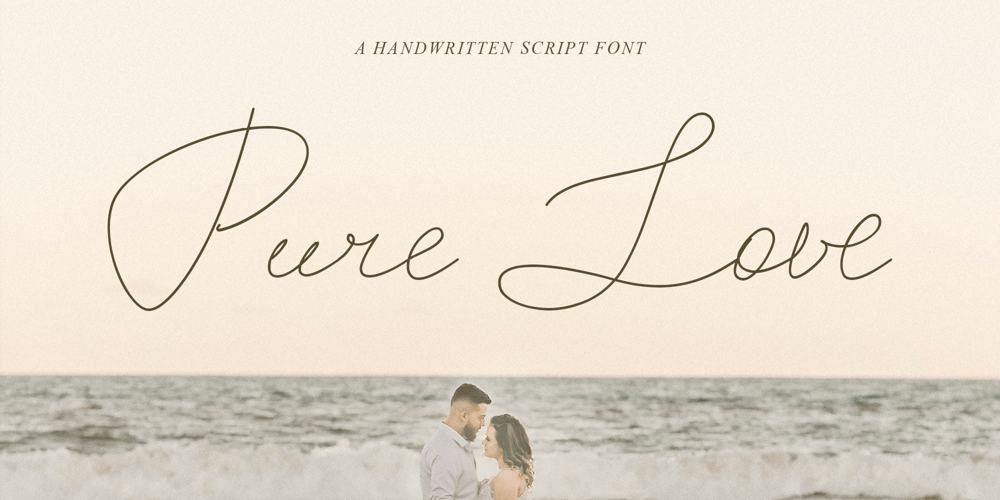
Pure Love Font Family was designed by Fidan Aslanova and published by Fidan Fonts. Pure Love contains 1 styles and family package options. Pure Love is a handwritten script font inspired by the romantic stories and wedding trends.It includes full set of uppercase and lowercase basic characters, multilingual symbols, numerals, punctuation, ligatures and alternates(check the previews in order to see them all).It’s works perfectly for wedding stationery, elegant branding, book cover designs, packaging, album covers, handwritten quotes, greeting cards, social media posts, and many more. Latin-based Language Support (You can check your language typing characters in text box below).If you want to type with stylistic ligatures and alternates make sure you have them turned on (use a capable software like Photoshop, Illustrator, InDesign, Word, Pages etc). Note: If you don’t use this font with these programs stylistic ligatures won’t work.Happy creating!